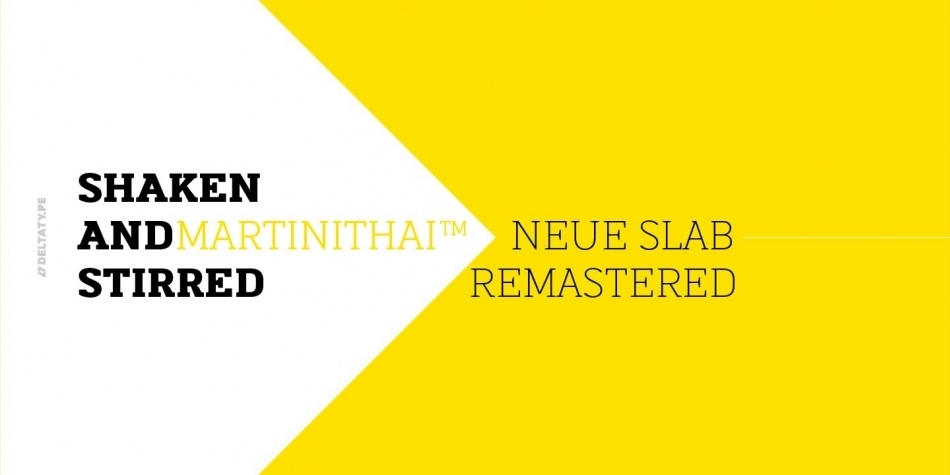
Martinithai Neue Slab Font
This MartiniThai Neue Slab Font is perfect for Thai restaurant branding, Southeast Asian cuisine materials, fusion dining establishments, tropical cocktail venues, Thai cultural centers, Asian hospitality communications, contemporary Thai design studios, international food festivals, exotic travel promotions, and multicultural business applications.
What makes this MartiniThai Neue Slab Font exciting is its cultural fusion that captures the sophisticated blend of Thai authenticity and contemporary international design excellence. The font features structured slab letterforms with Thai-inspired characteristics that convey cultural sophistication, international appeal, and modern Asian elegance. Its fusion character and culturally-inspired design make it ideal for brands seeking to communicate Thai authenticity, international sophistication, and contemporary Asian excellence in hospitality and cultural markets.
The MartiniThai Neue Slab Font family includes light, regular, medium, and bold weights with Thai alternates, cultural variants, and international flourishes. This comprehensive fusion font family provides designers with sophisticated typographic tools to create culturally rich compositions while maintaining the Thai character essential for Asian hospitality and international cultural communications.
The sophisticated construction of MartiniThai Neue Slab Font showcases culturally designed letterforms with Thai proportions that ensure exceptional appeal across all Asian hospitality applications. Its international appearance and cultural character create memorable impressions while maintaining the readability necessary for effective Thai communication and cultural materials.
Professional designers appreciate how MartiniThai Neue Slab Font brings immediate Thai authenticity and international sophistication to brand communications. The font's fusion nature allows organizations to communicate cultural excellence and Thai sophistication while maintaining the professional quality necessary for effective positioning in Asian hospitality and international cultural markets.
The exotic appeal of MartiniThai Neue Slab Font makes it particularly effective for brands emphasizing Thai culture, Asian sophistication, and international culinary excellence. Its cultural character resonates strongly with audiences who appreciate Thai traditions, Asian hospitality, and brands that represent the authentic beauty and contemporary sophistication of Thai cultural excellence.